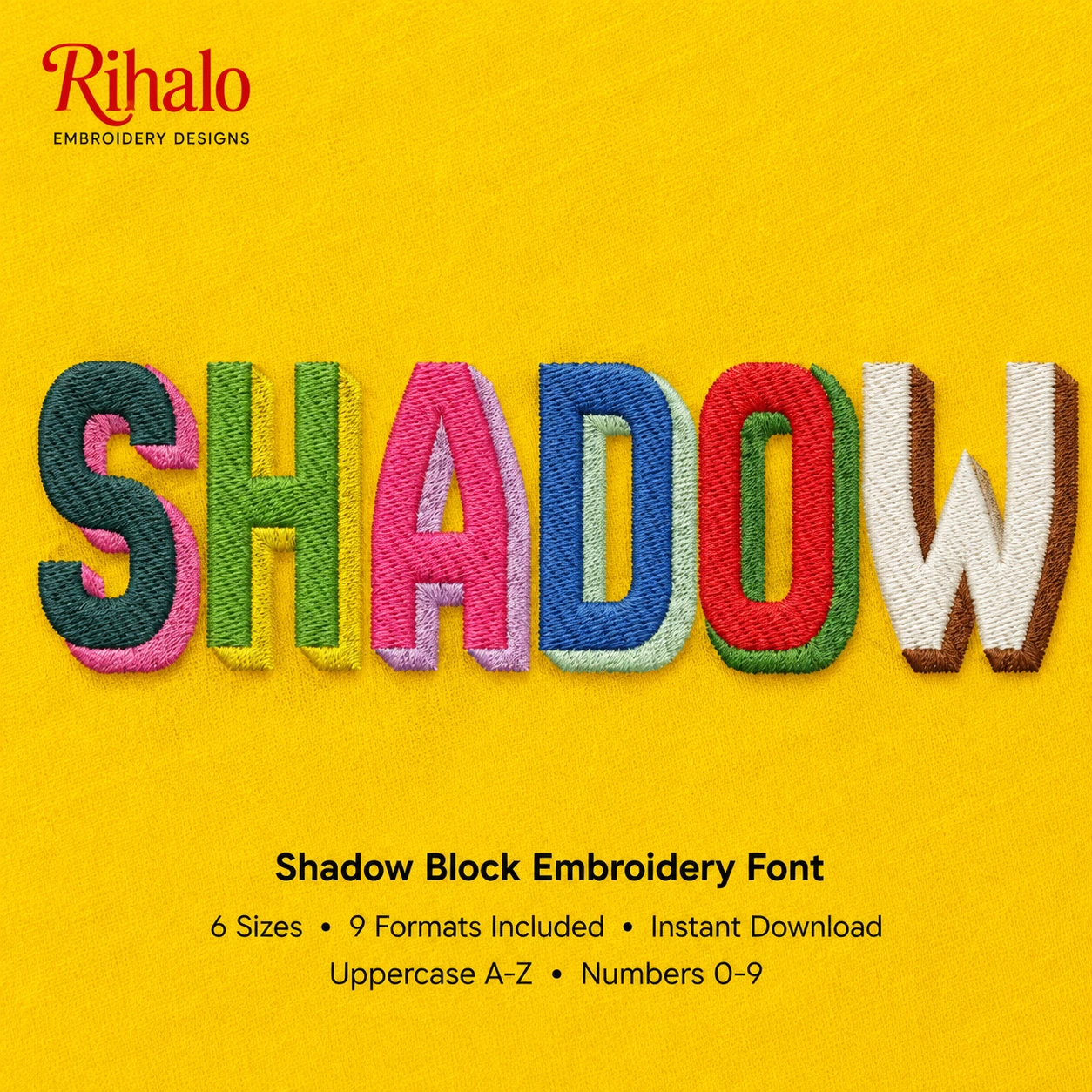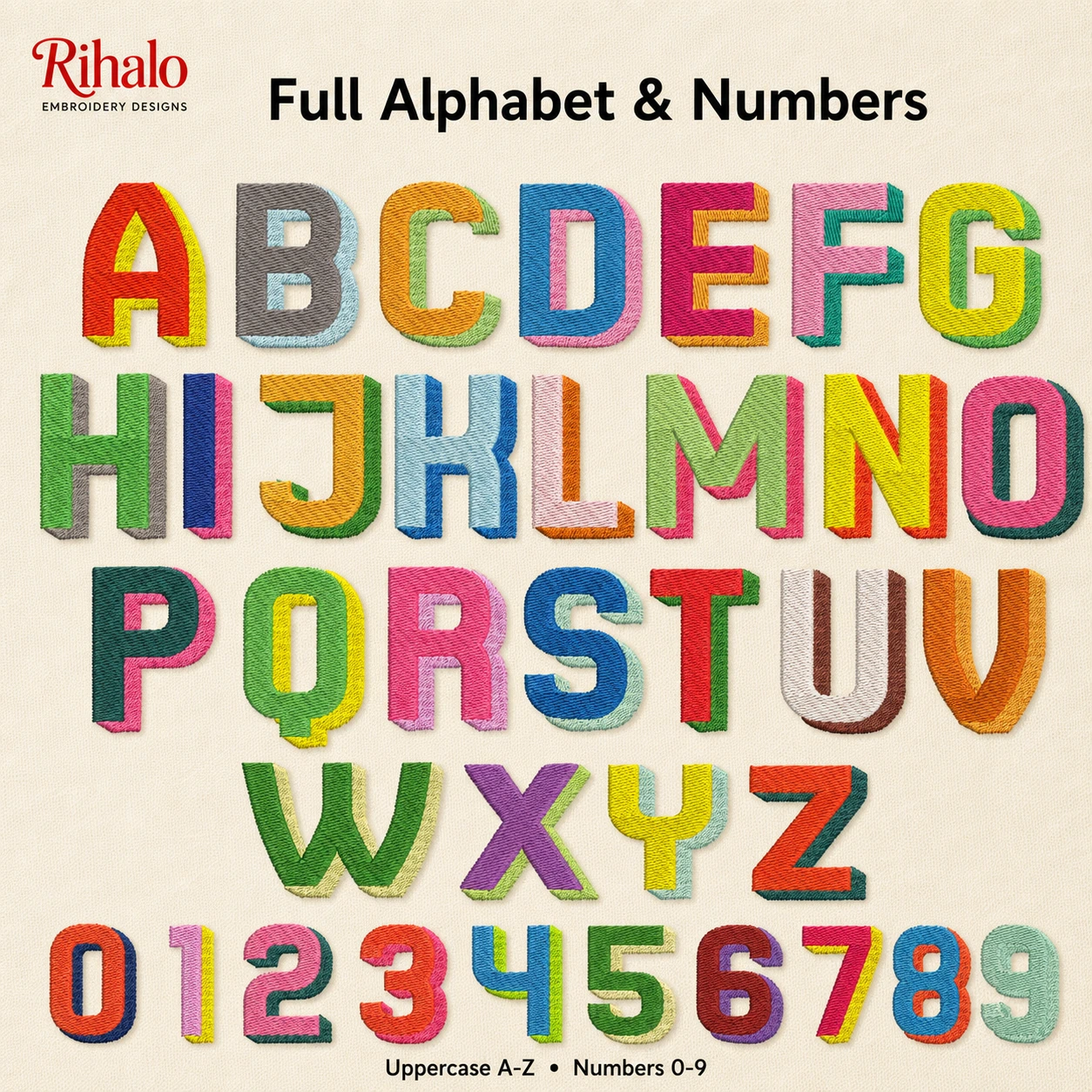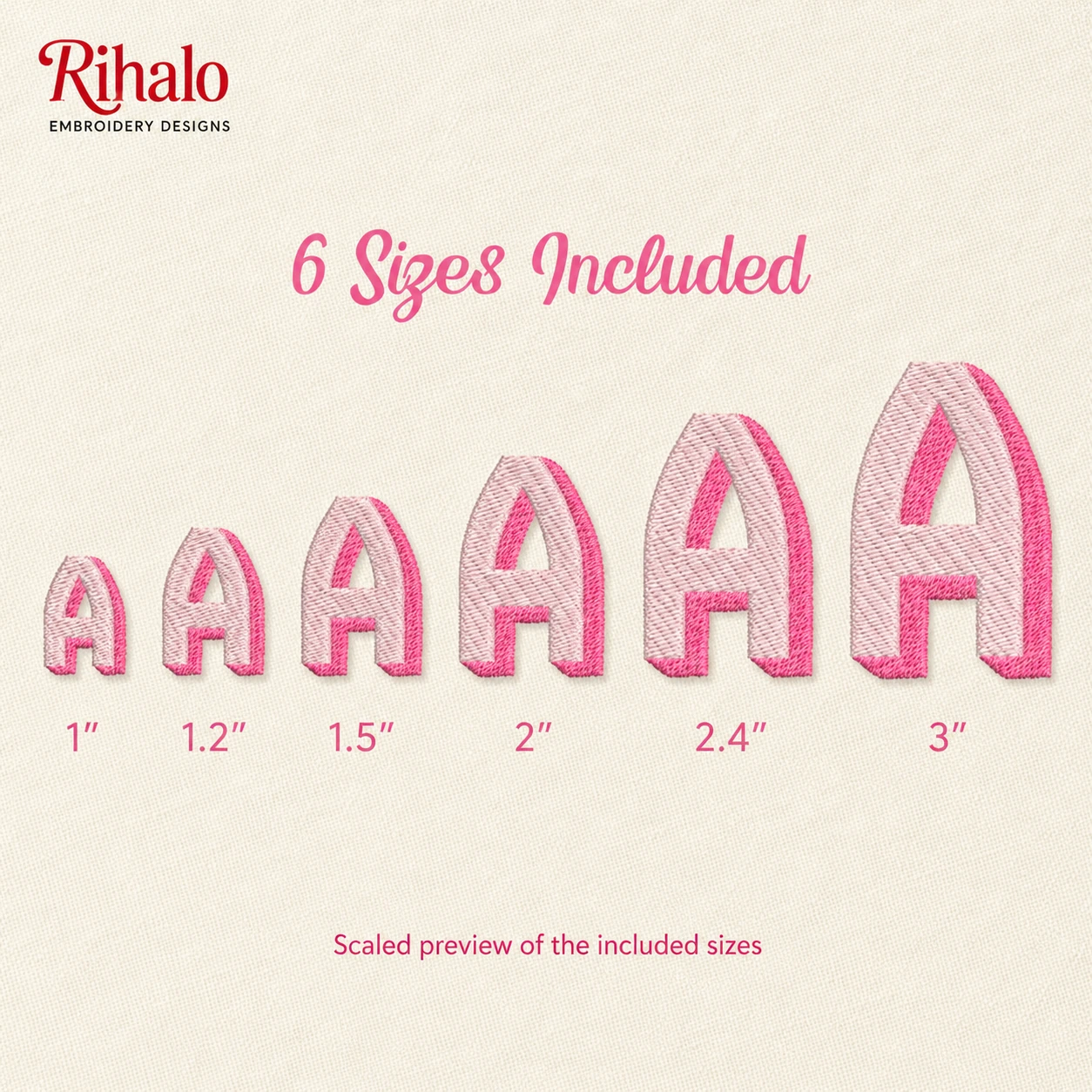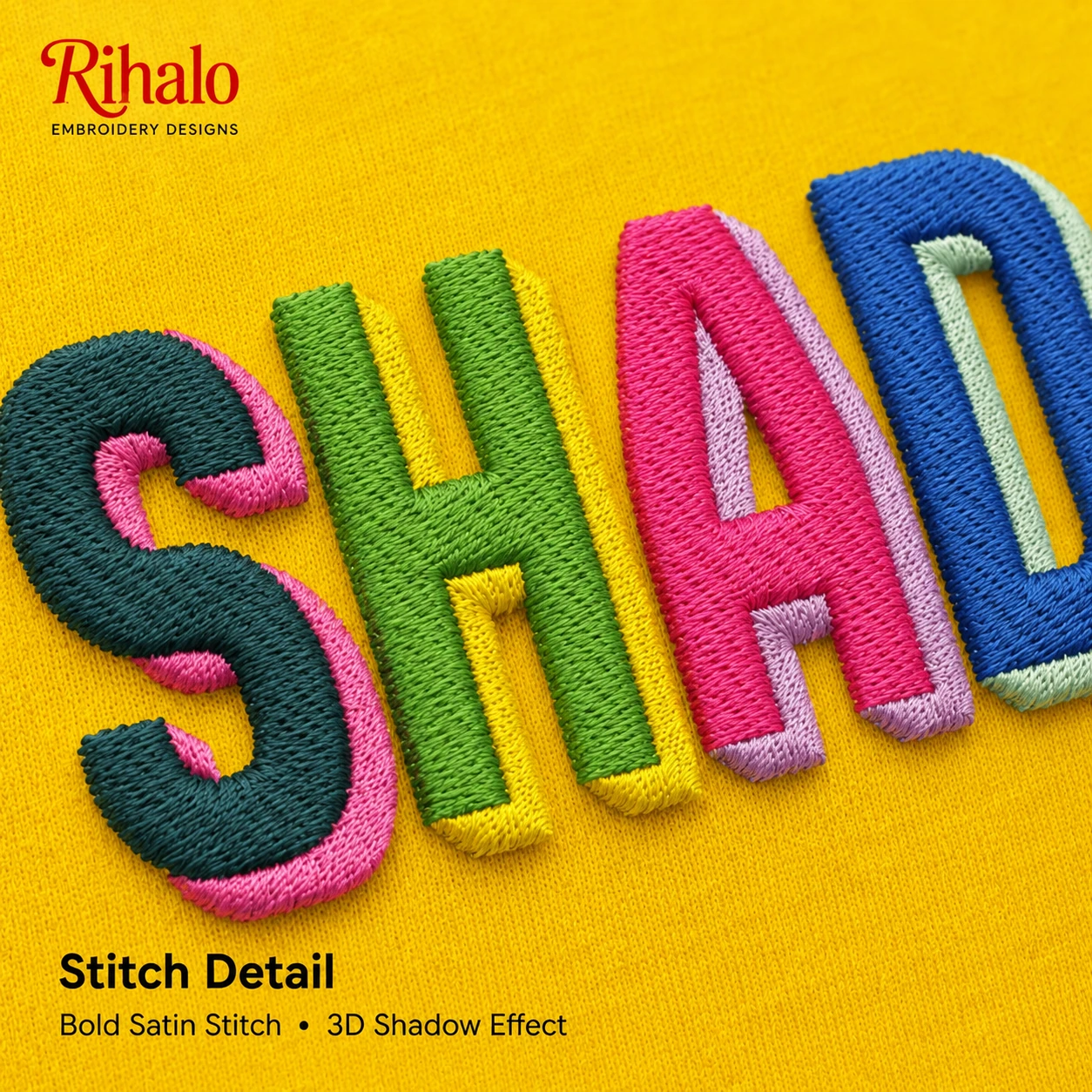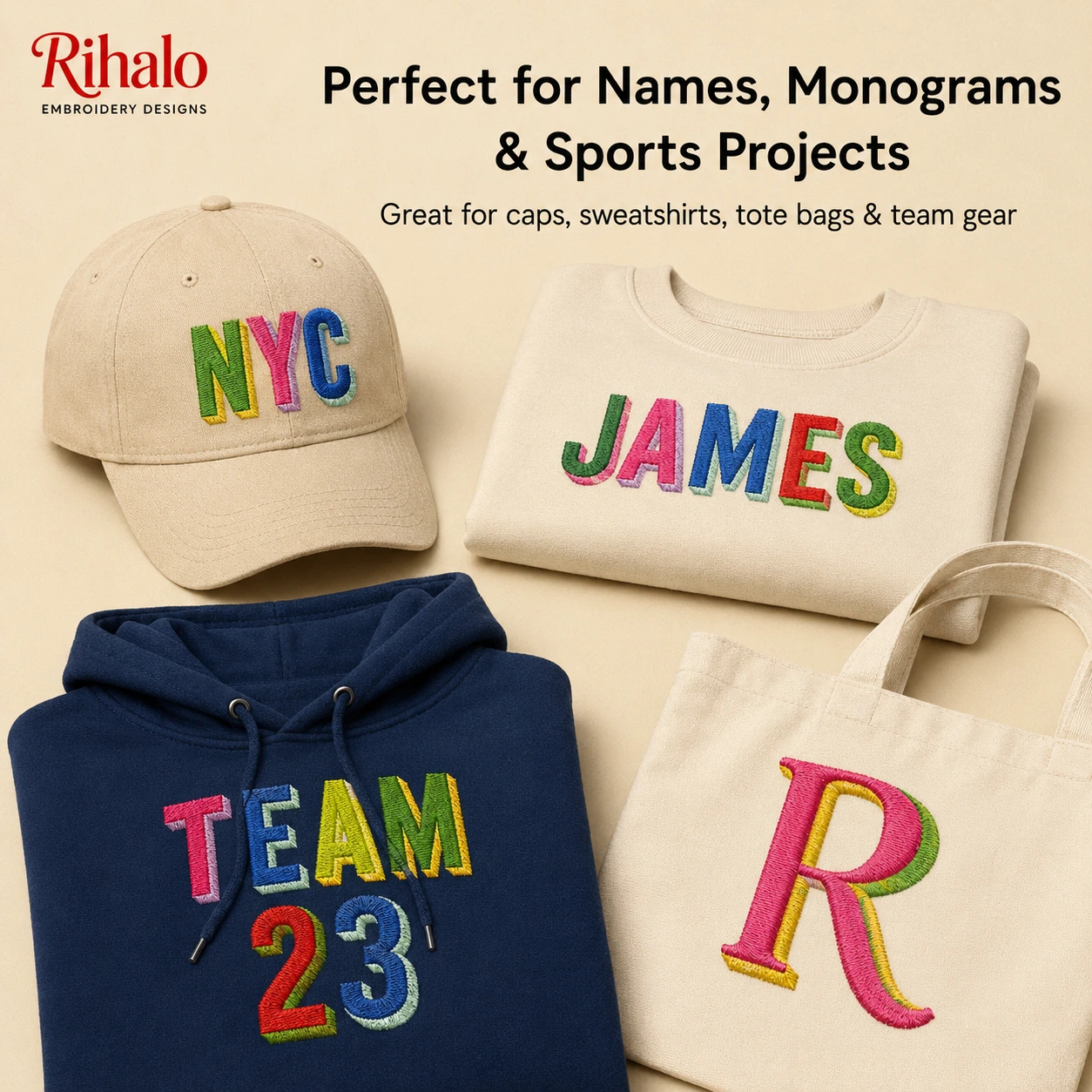
Shadow Block Machine Embroidery Font
Create bold, colorful embroidery projects with this two-color shadow block embroidery alphabet.
Each character combines a strong block-style letter with an offset shadow layer, giving names, initials and numbers a dimensional stitched appearance that works especially well for sportswear, children’s clothing, team projects and personalized gifts.
• Uppercase letters A–Z
• Numbers 0–9
PERFECT FOR
Names
Monograms
Initials
Sportswear
Team apparel
Caps
Sweatshirts
Tote bags
Children’s clothing
Personalized gifts
SHADOW EFFECT
The font uses a separate contrasting shadow layer behind the main letter, creating a bold two-color dimensional appearance.
Choose your own thread colors to create classic, pastel, team-color or high-contrast combinations.